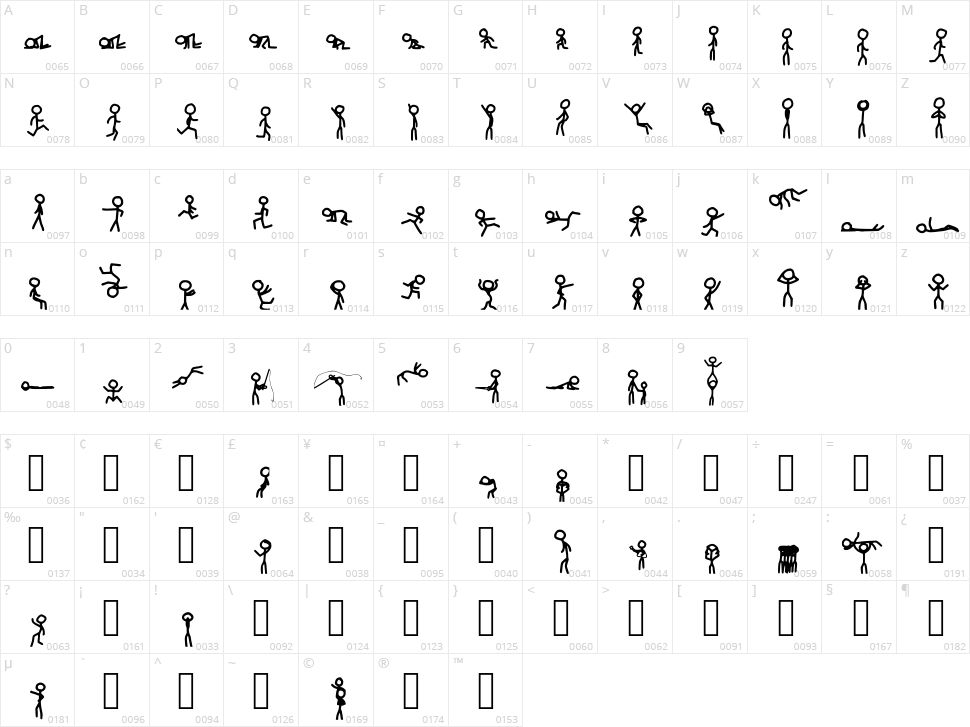
Stick Figure Font
Here is a font which is literally just stick figures in various positions. Many, many fun stick figures who range from crime fighting to book reading to guitar playing, jumping, sitting stick figures. Use it as you wish, anywhere, but don't redistribute this as a font.